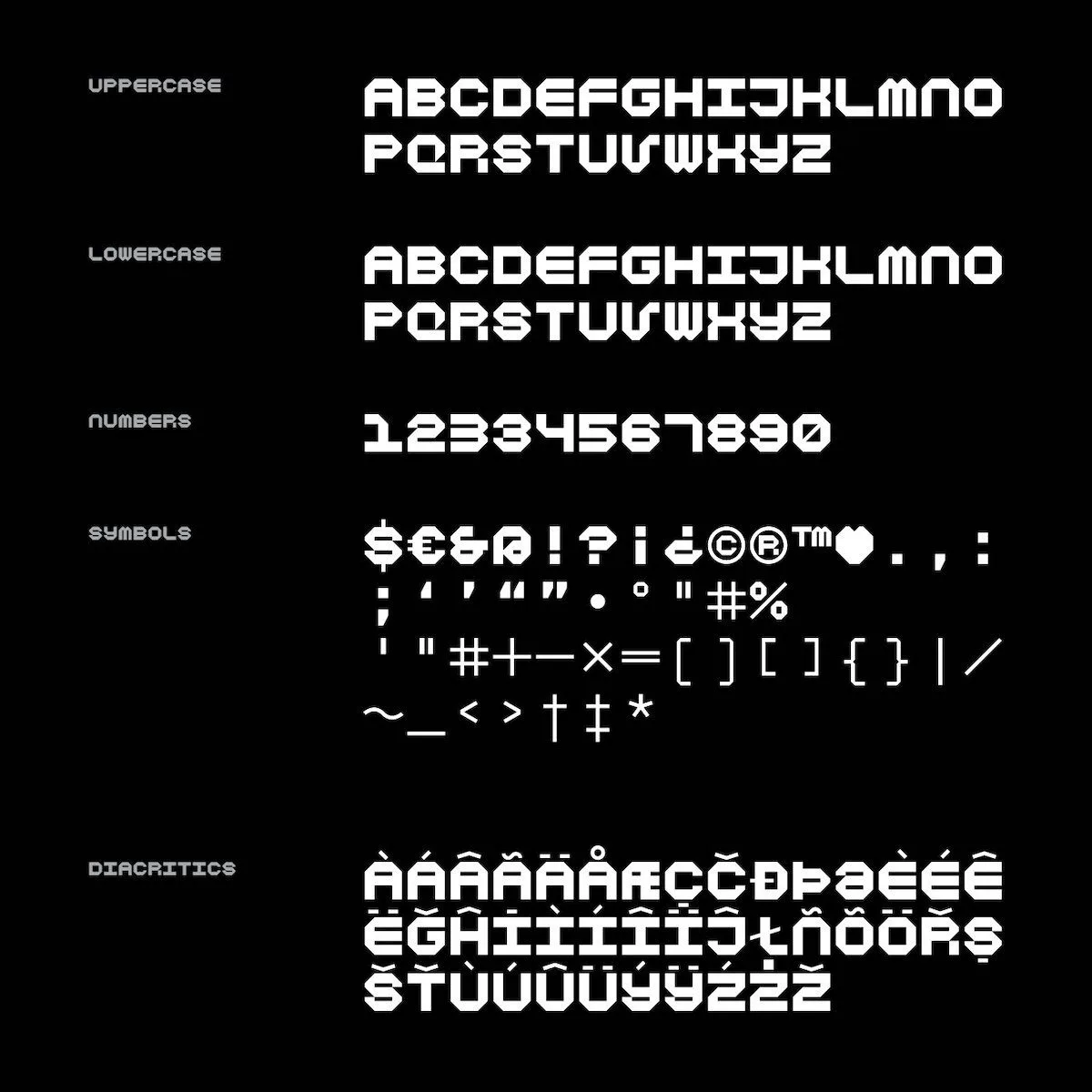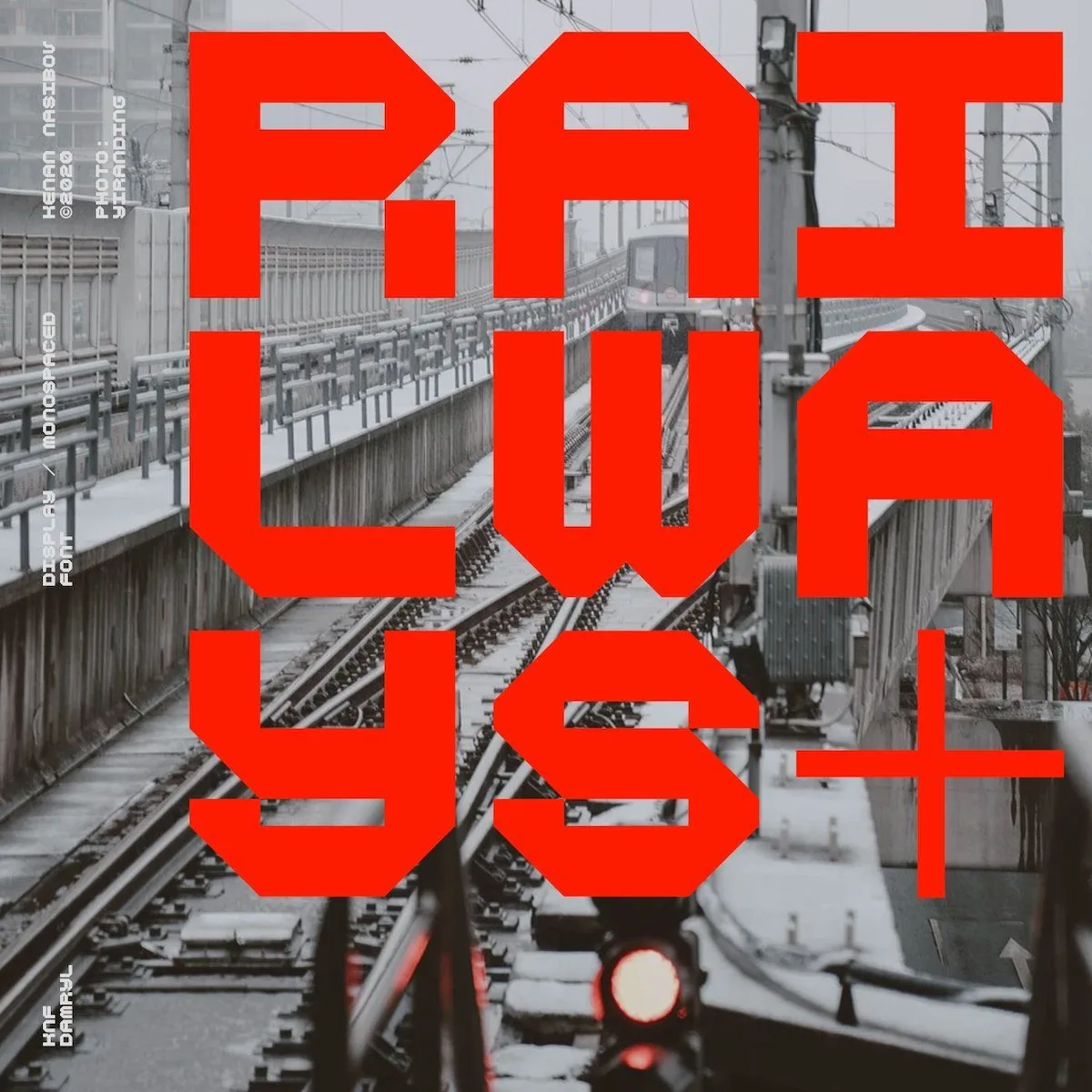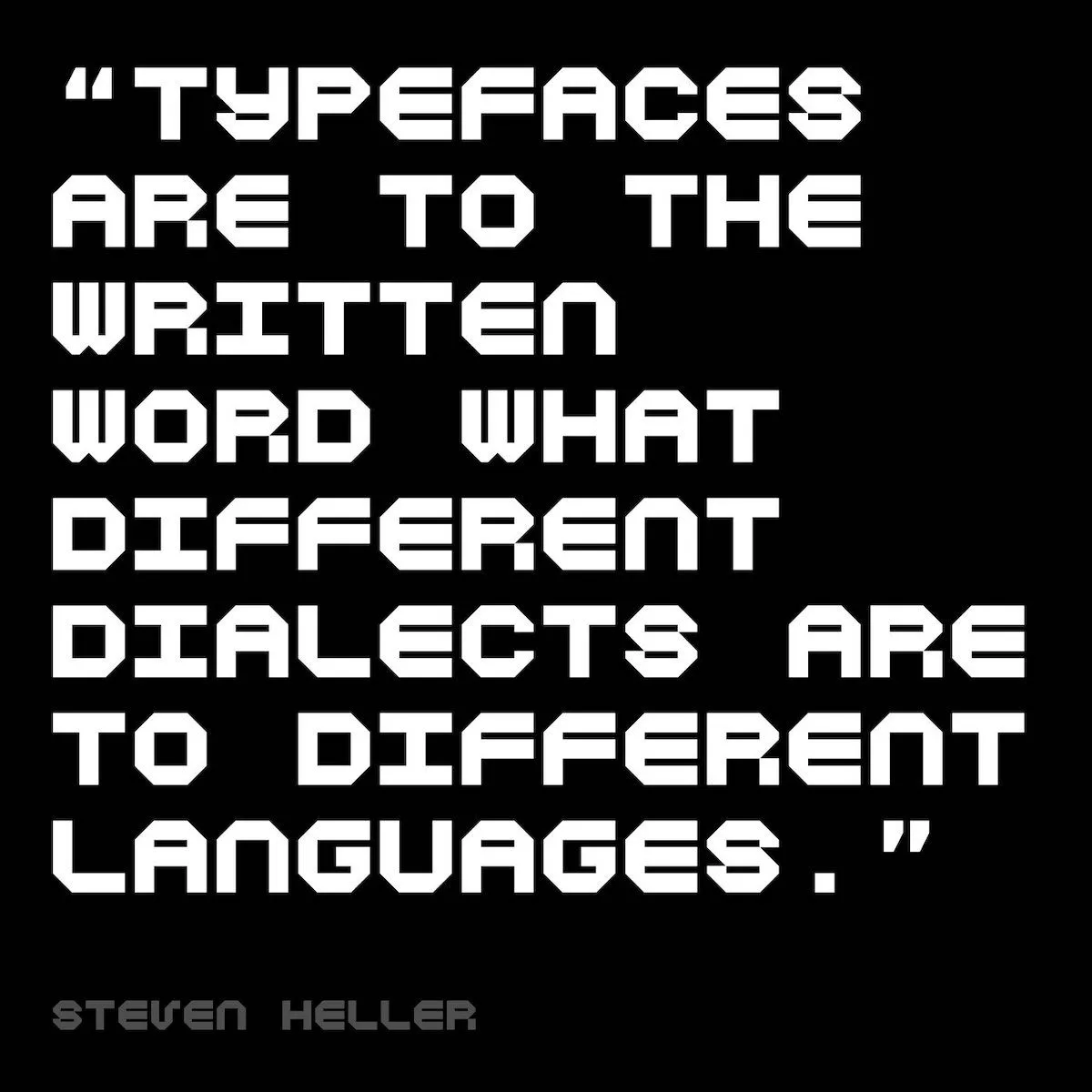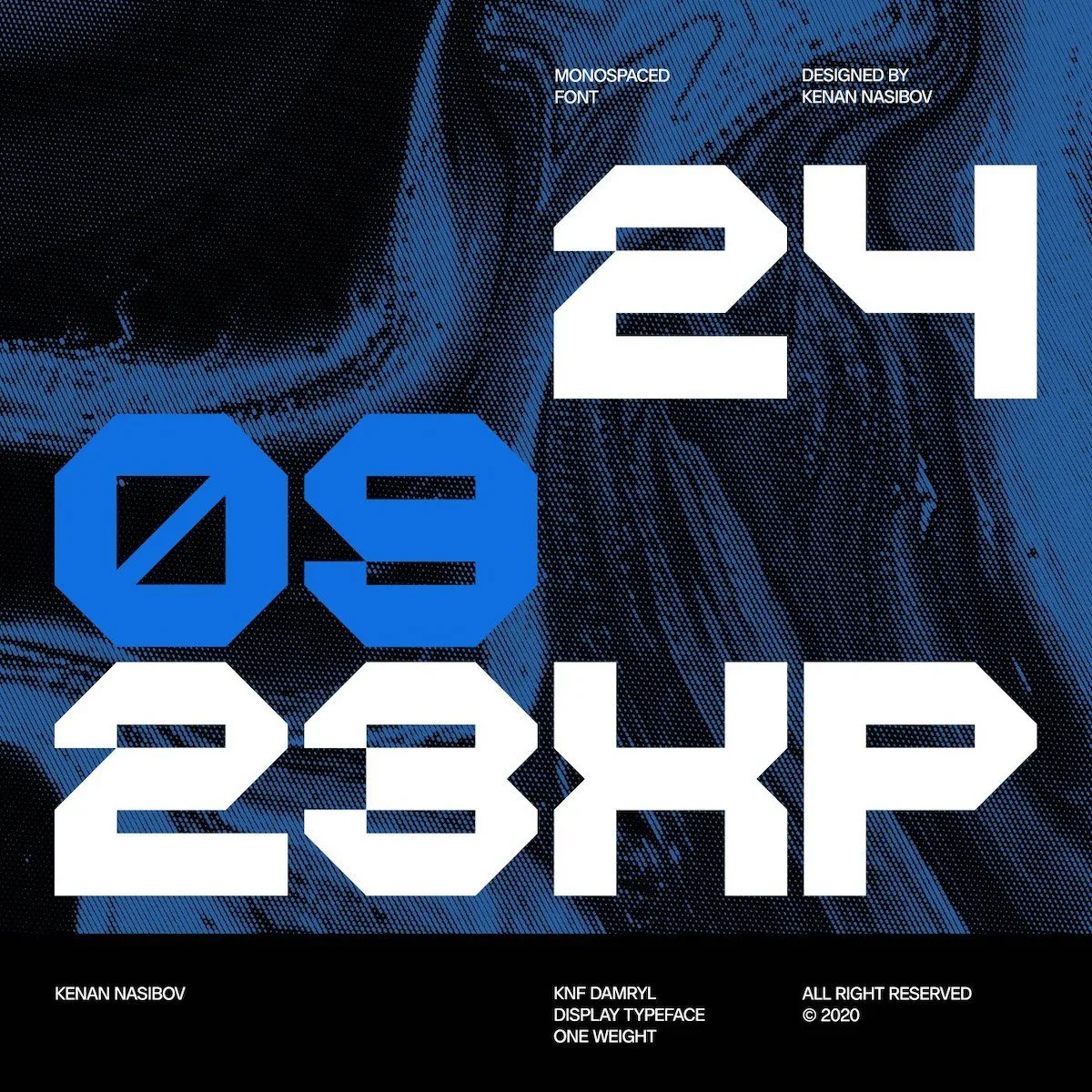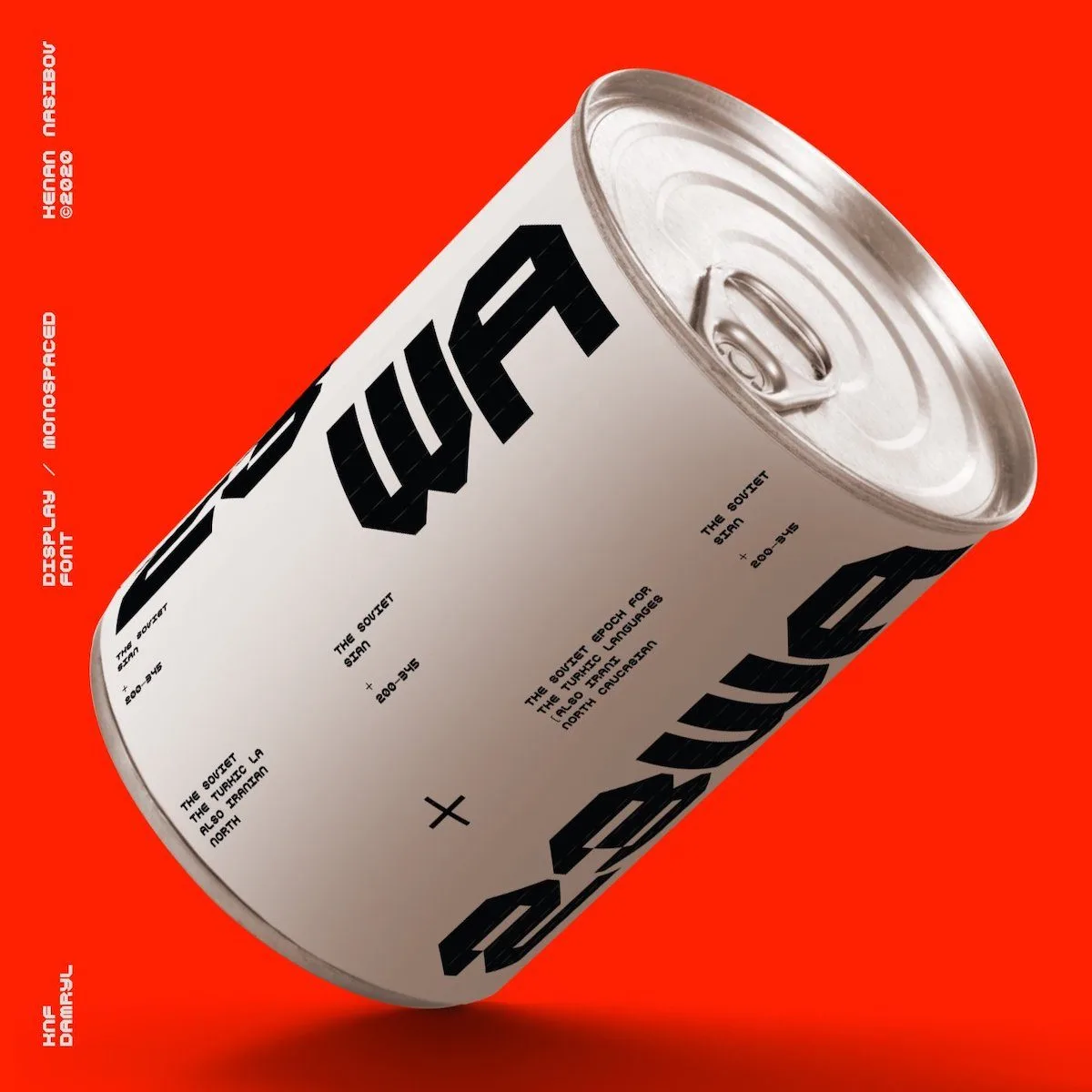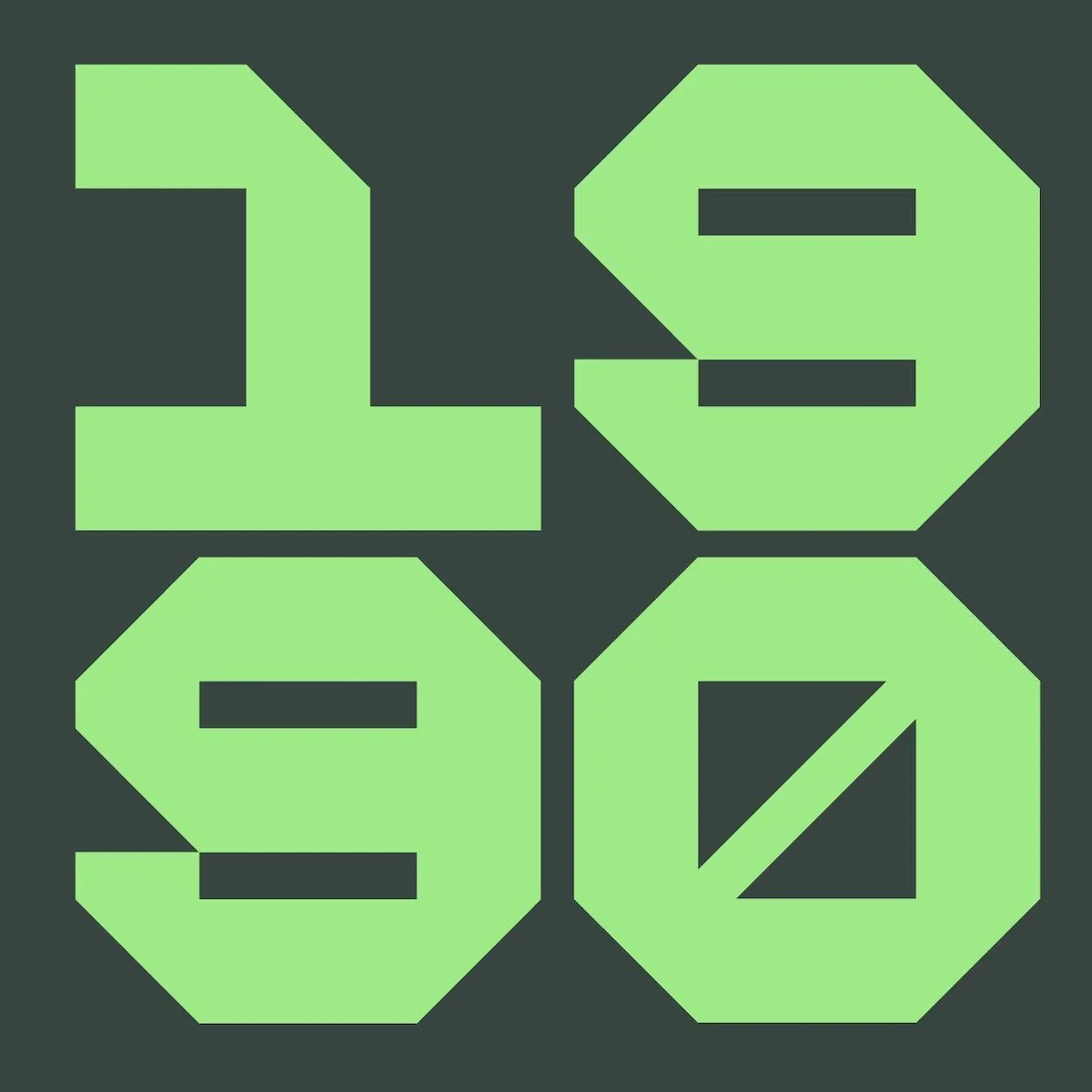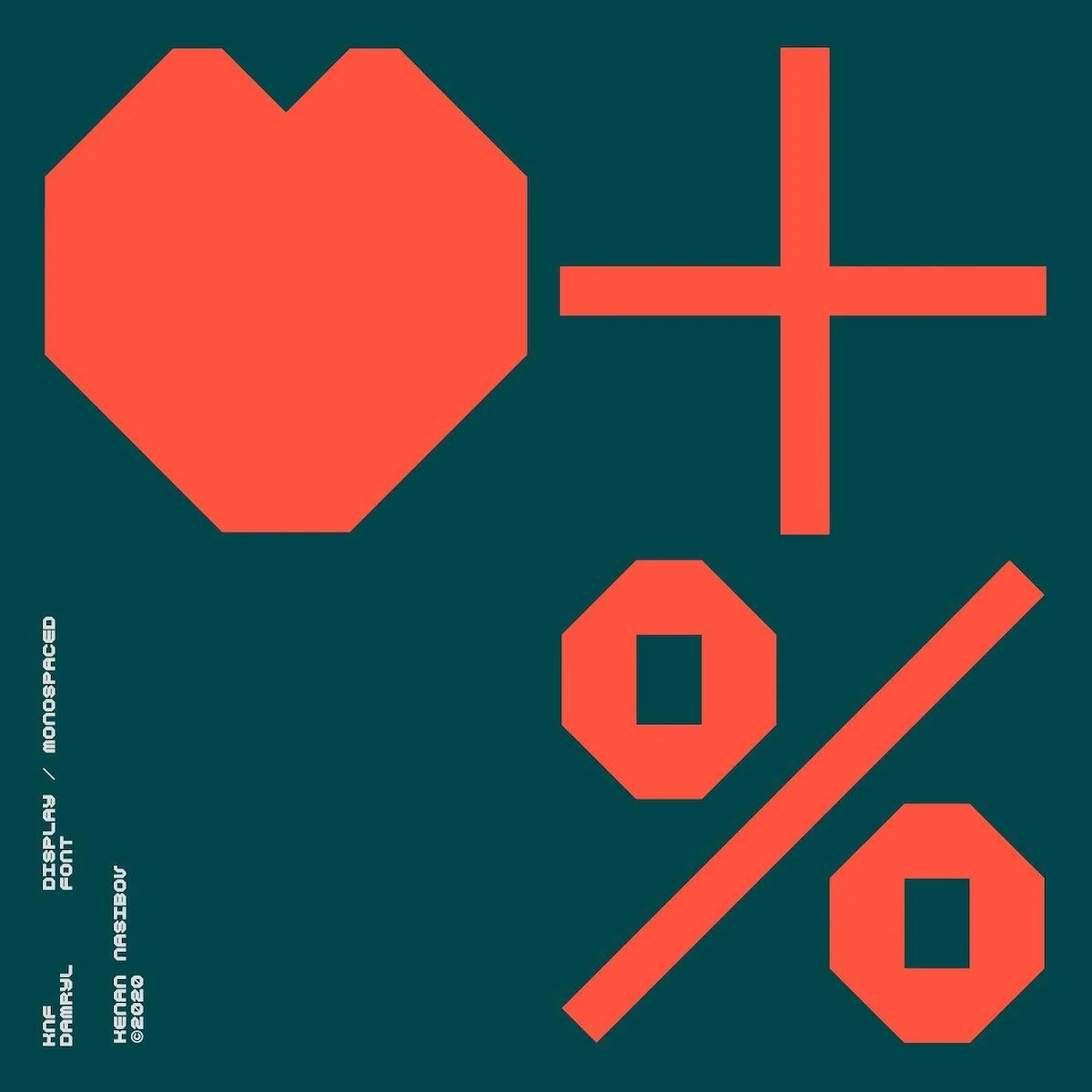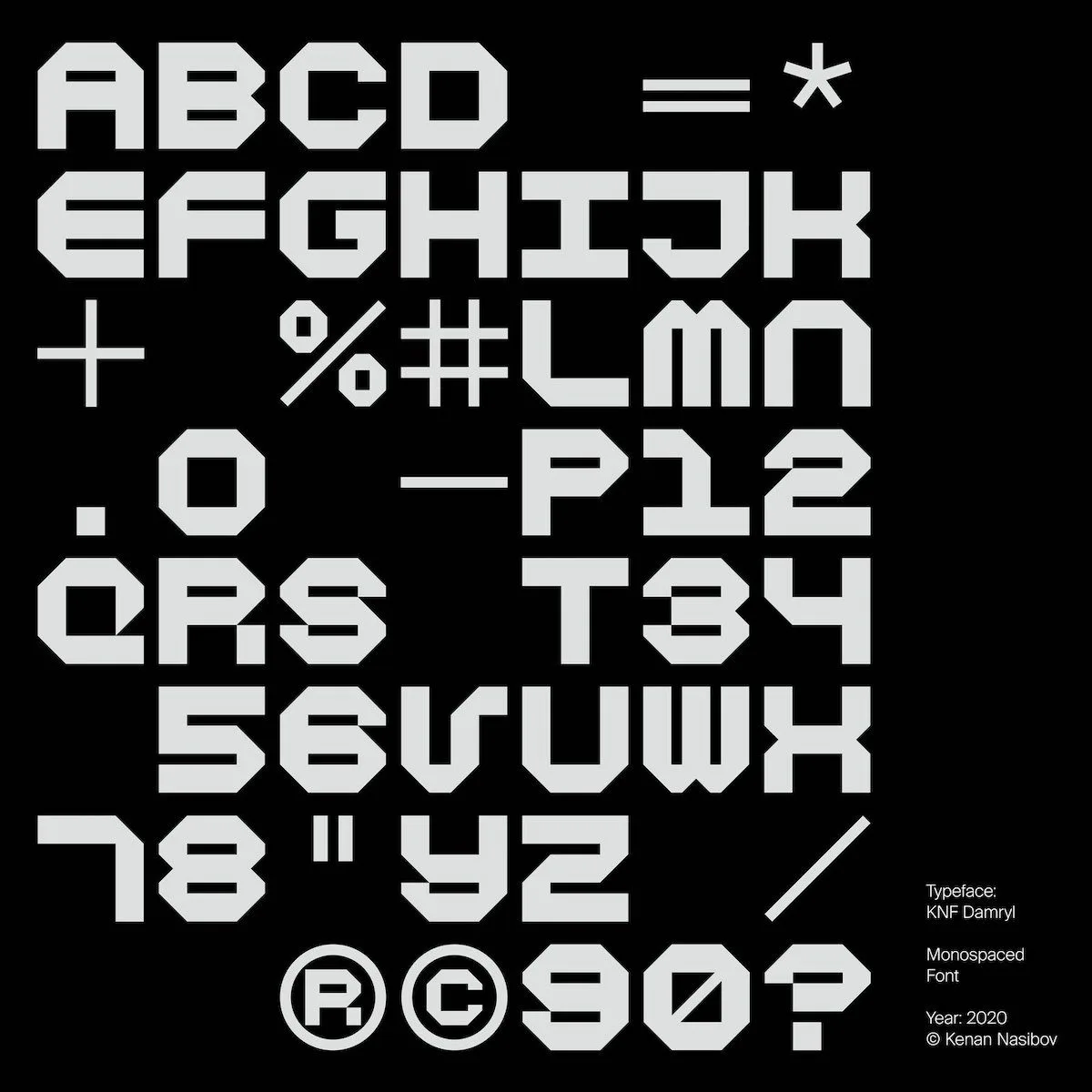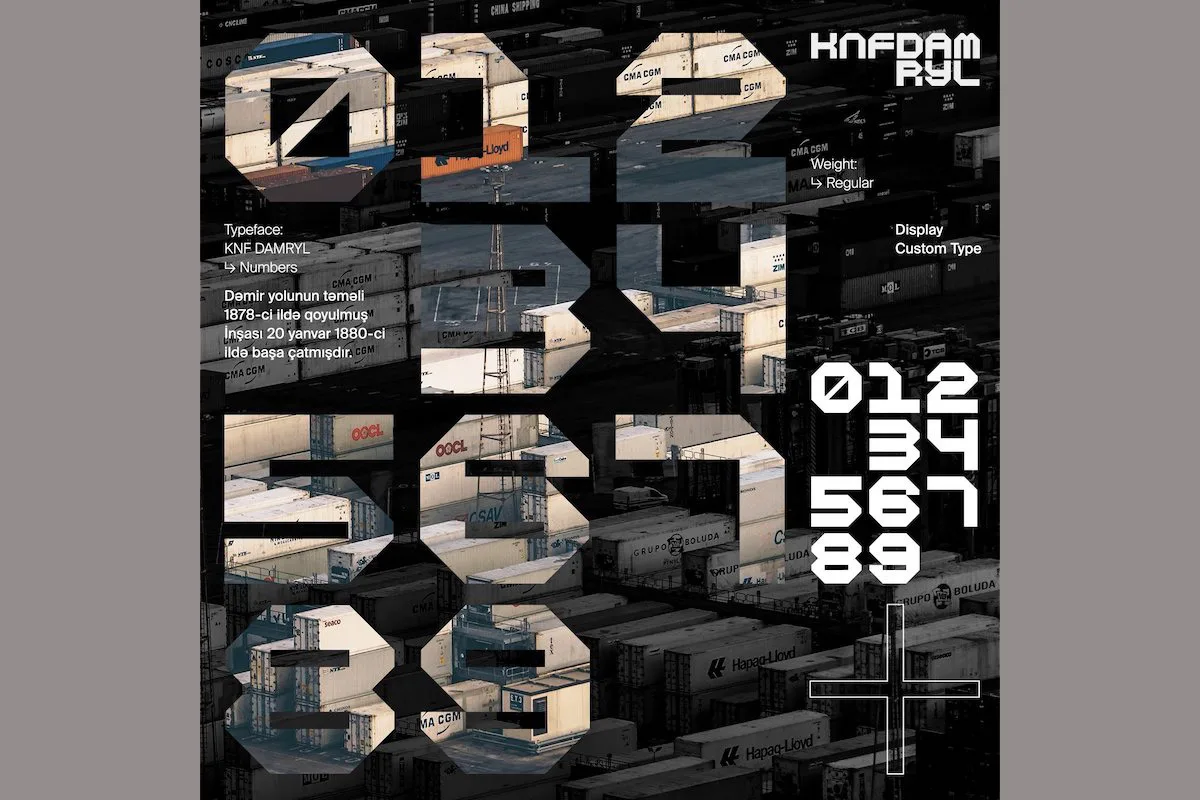
KNF Damryl, newly released on Type Department, is the brainchild of Azerbaijan-based Graphic & Digital Designer, Kenan Nasibov.
This monospaced display font has a bold, robust character and sits comfortably as a modern geometric sans serif. Created with inspiration from geometric and postmodernist typefaces such as Gridnik and FRAC, KNF Damryl packs maximum impact.
Intended for display uses, KNF Damryl will add dimension and power to headlines, posters, magazines and logos in both large and medium point sizes. Its robust structure means it is both versatile and direct and would work well across a range of settings; from branding and packaging to editorial and headlines.